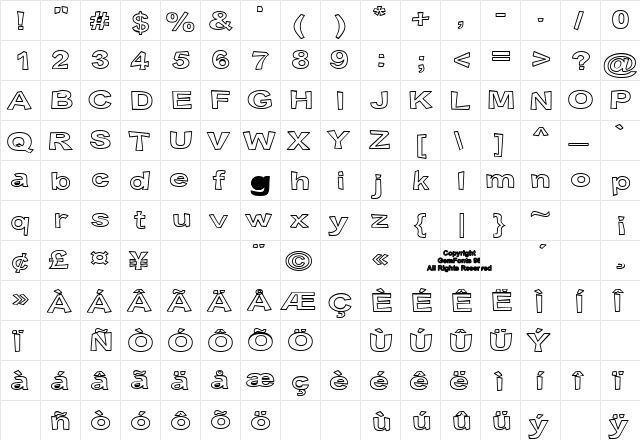
Snott Outline
| Style | Outline |
Design Context for Snott Typeface
Snott is built around its visual character rather than neutral utility — its distinctive forms are designed to make an impression at display sizes.
Font Pairing: Pair with a clean neutral sans-serif for body copy to let Snott's character lead without overwhelming the composition.
Pro Tip: Use Snott exclusively at display sizes — it was designed to be seen, not read at length. Let a neutral companion handle body copy.